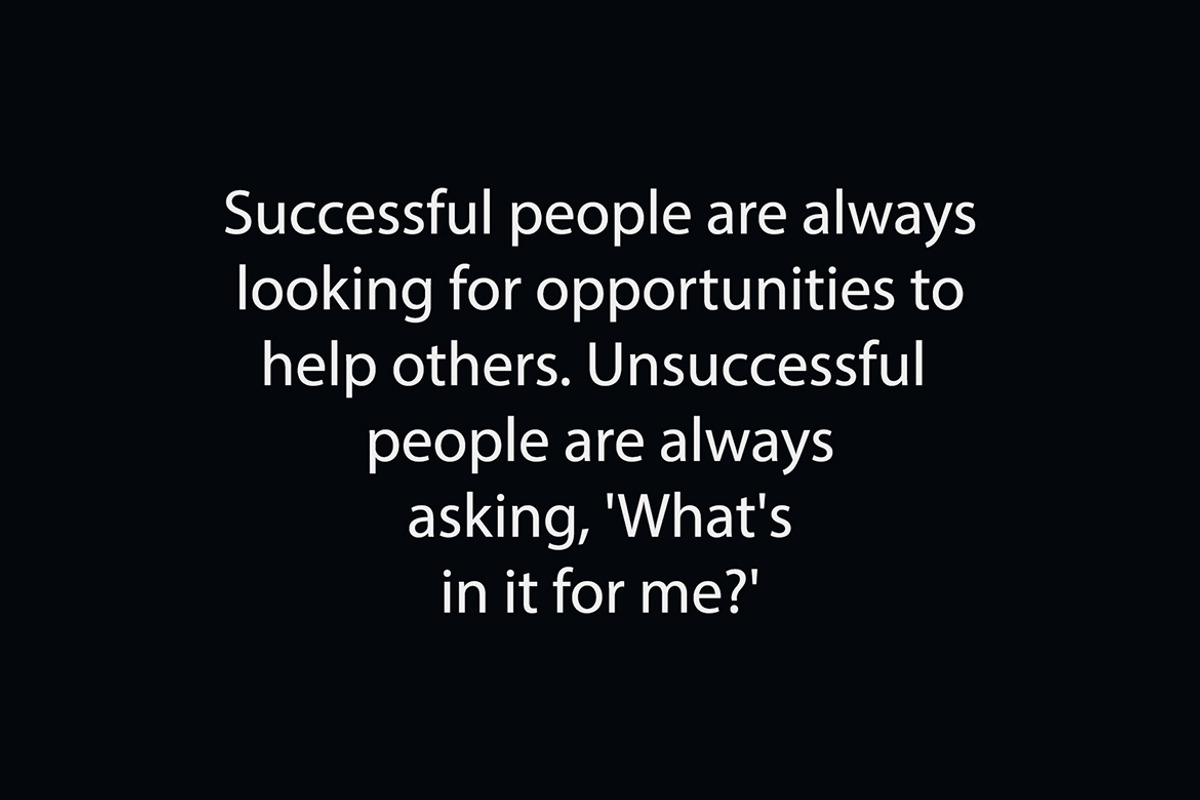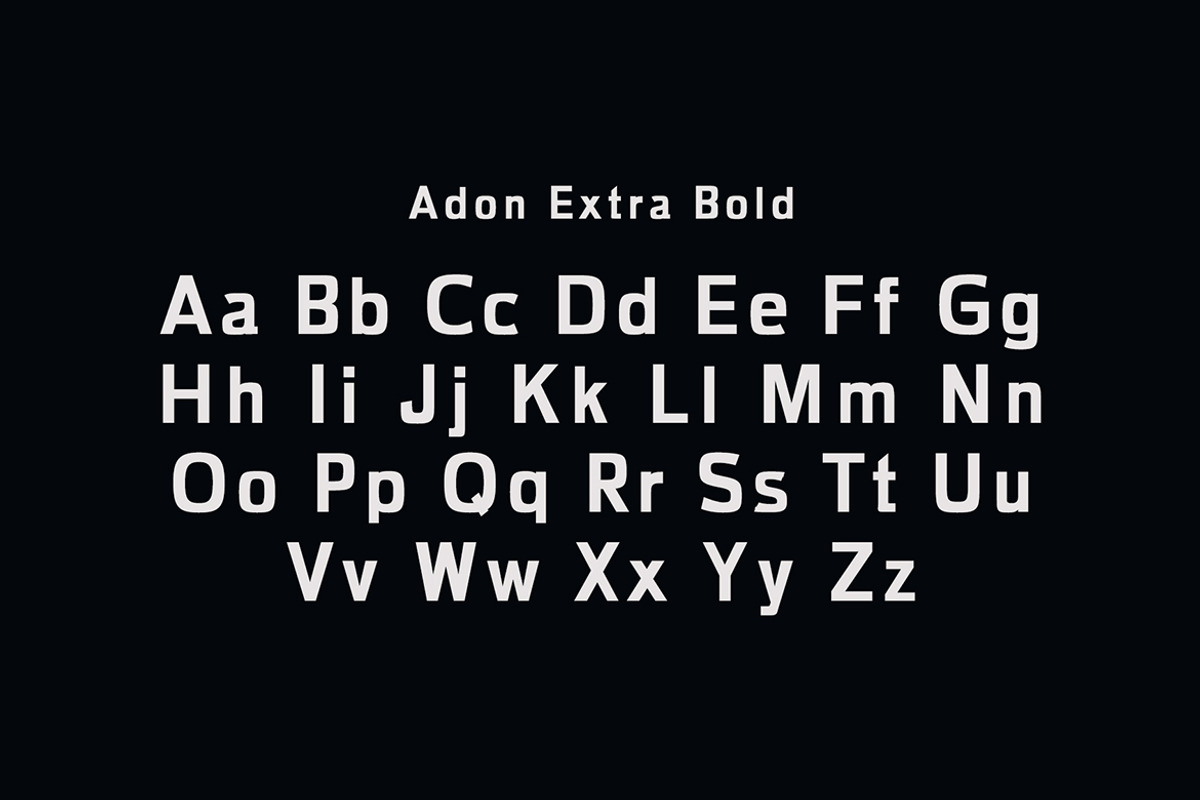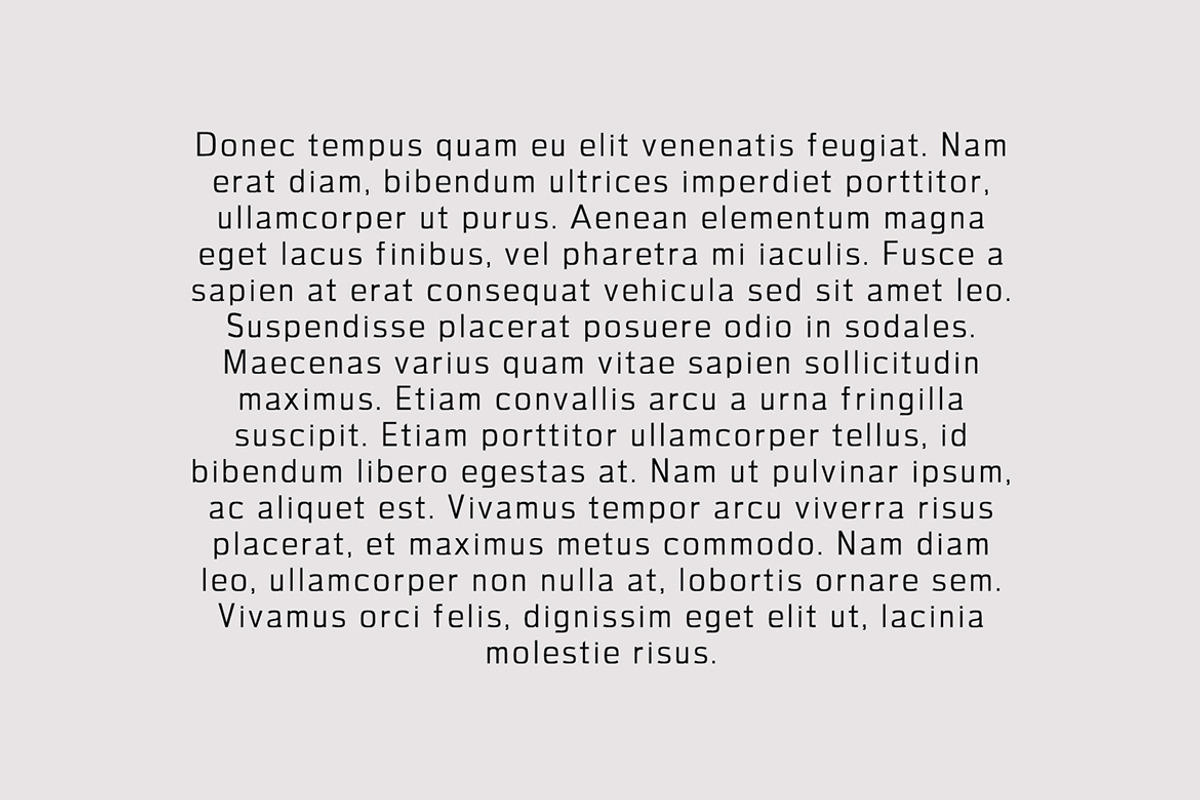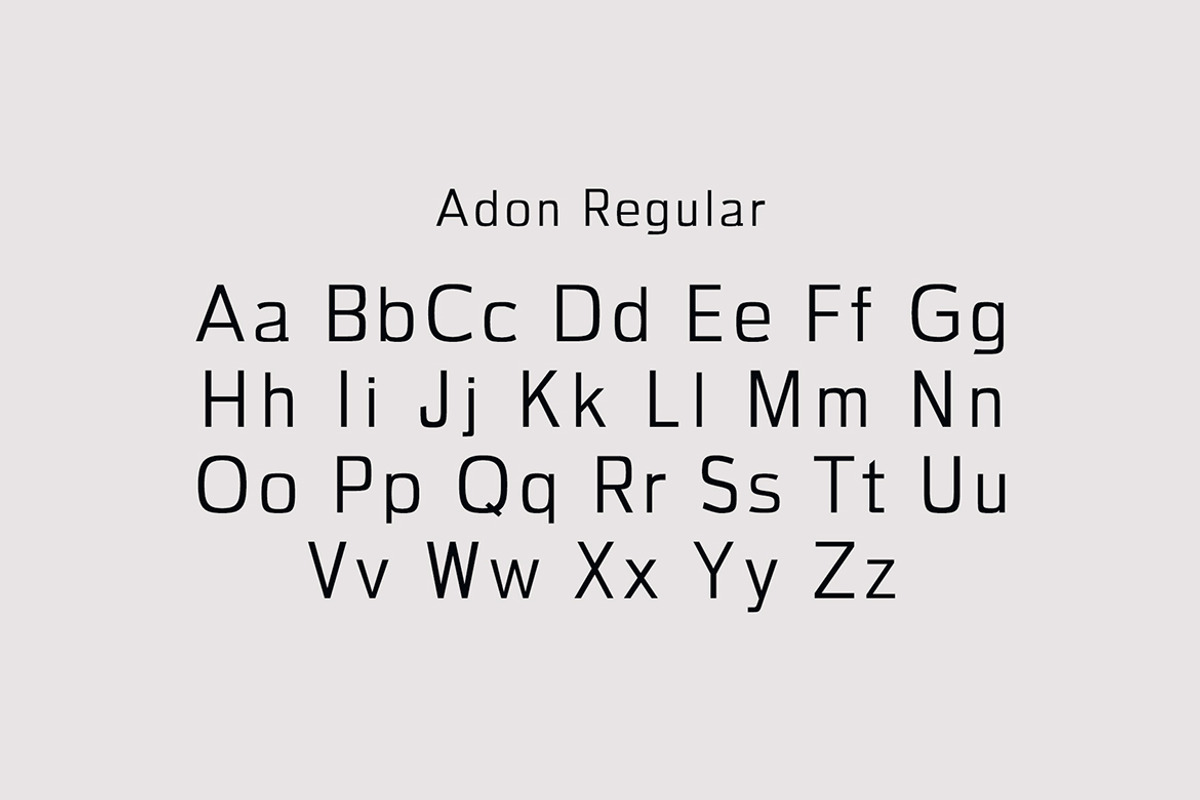
Adon Sans Serif Fonts Family Pack
Adon Sans Serif Fonts Family Pack by Creativetacos is a font selected for branding, posters, packaging, typography.
- It comes with basic glyphs and support multilingual.
- Regular, Thin, Bold and Extra Bold Weights
- Adon Thin
- Adon Regular
- Adon Bold
- Adon Extra Bold
Adon Sans Serif Fonts Family Pack by Creativetacos fits naturally into Branding, posters, packaging, typography.